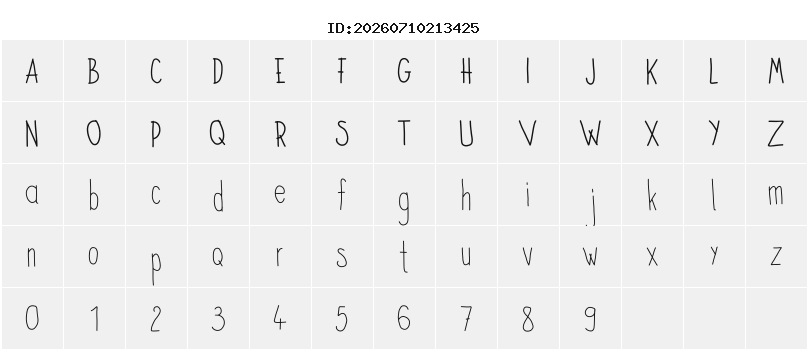
handstick Preview
• Font Name: handstick
• Full Font Name: handstick
• PostScript Name: handstick
About handstick.ttf
handstick.ttf is a modern, elegant sans-serif font designed for ultimate readability and visual harmony. Perfect for branding, headlines, web design, and print materials.